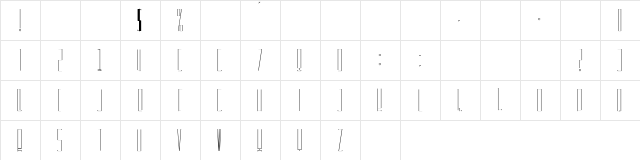
BABBIO-BASSO Roman Free Font
BABBIO-BASSO Roman
Design Context for BABBIO-BASSO
BABBIO-BASSO is a composed and adaptable typeface that performs quietly and consistently across a wide range of design contexts.